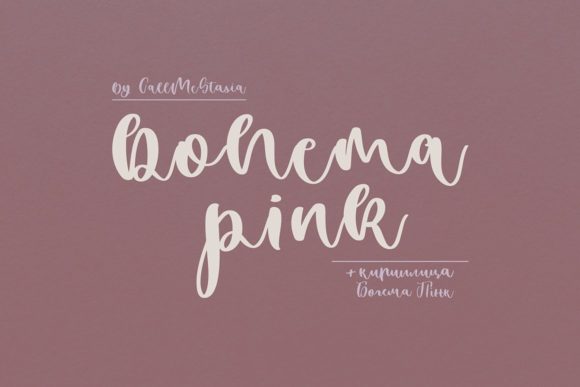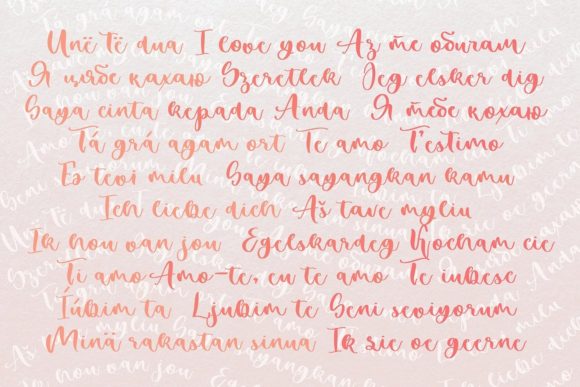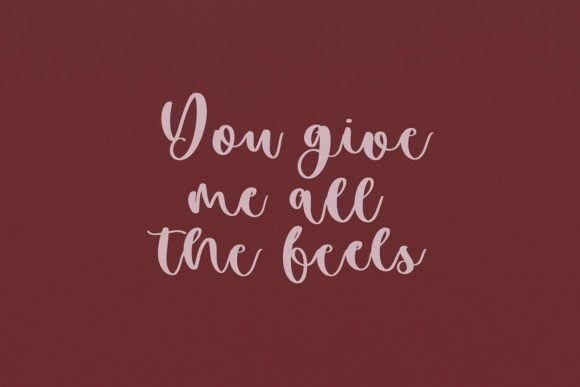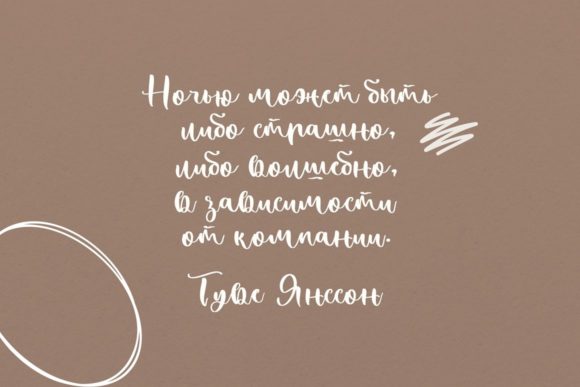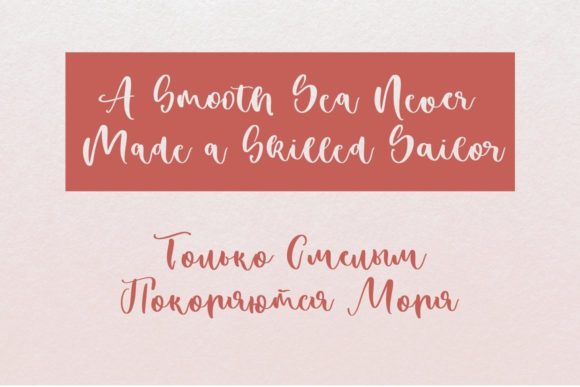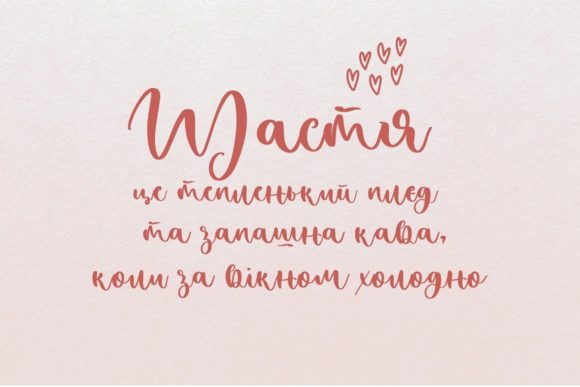
Bohema Pink Font
About Bohema Pink Font
Bohema Pink is a sweet hand-lettered script font. This cute modern calligraphy is perfect for branding, logos, greeting cards and prints, packing, t-shirts and other projects.